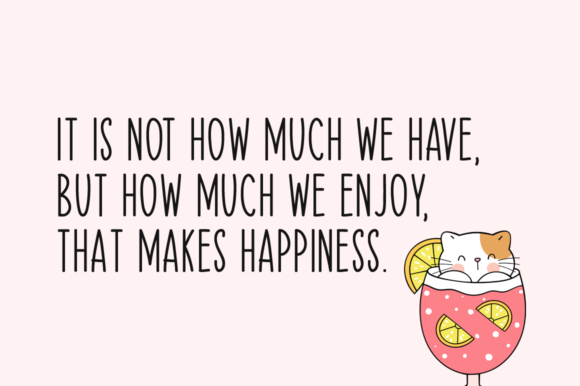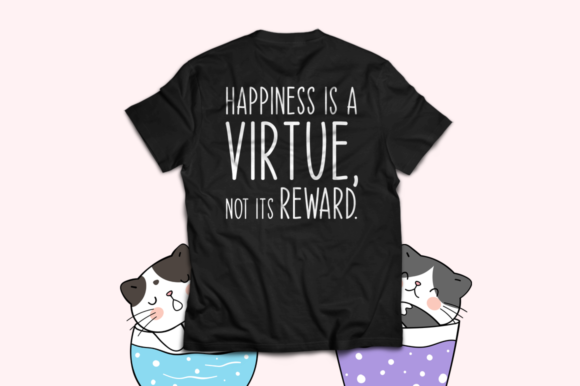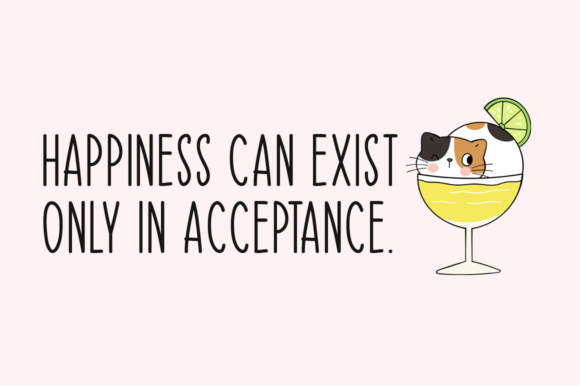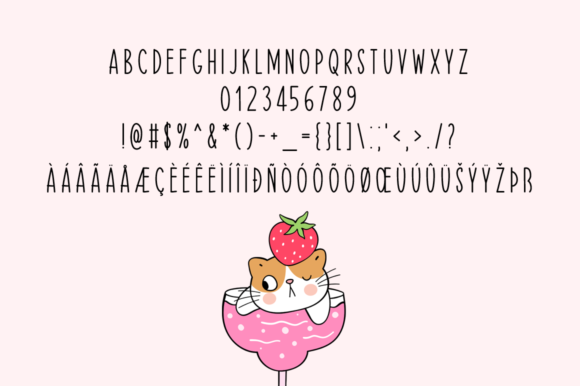
Introducing Happy Moment Font: The Perfect Addition to Your Design Arsenal
Are you a designer, crafter, or educator looking for a unique and charming font to elevate your visual creations? Look no further than Happy Moment Font, a delightful and versatile handwritten font that’s perfect for a wide range of applications. In this article, we’ll dive into the features and benefits of Happy Moment Font, and explore how it can add a personal touch to your designs.
The Charm of Happy Moment Font
Happy Moment Font is a beautifully crafted, lettered handwritten font that’s designed to bring a smile to your face. Its tall and slender letters exude a sense of playfulness and friendliness, making it an ideal choice for projects that require a touch of whimsy. Whether you’re creating chalkboard quotes, teaching materials, or social media graphics, Happy Moment Font is sure to capture the attention of your audience.
Authentic Look and Feel
One of the standout features of Happy Moment Font is its authentic look and feel. The font’s handwritten style is reminiscent of traditional chalkboard writing, complete with subtle imperfections and variations that give it a realistic, hand-crafted feel. This makes it perfect for designers and crafters who want to add a personal touch to their work. With Happy Moment Font, you can create designs that feel warm, inviting, and uniquely yours.
Happy Moment Font is a versatile font that’s suitable for a wide range of design applications. Here are just a few ways you can use this delightful font:
- Chalkboard quotes: Add a touch of personality to your chalkboard quotes with Happy Moment Font. Its tall letters and playful style make it perfect for creating eye-catching quotes that will engage your audience.
- Teaching materials: Happy Moment Font is a great choice for teachers who want to create engaging and interactive lesson plans. Use it to create worksheets, posters, and other educational materials that will delight your students.
- Social media graphics: Add a personal touch to your social media graphics with Happy Moment Font. Its playful style and authentic look make it perfect for creating graphics that will help you connect with your audience.
- Crafting projects: Happy Moment Font is also a great choice for crafters who want to add a personal touch to their projects. Use it to create custom signs, banners, and other decorative items that will make your projects stand out.
Why Choose Happy Moment Font?
So why choose Happy Moment Font over other fonts on the market? Here are just a few reasons:
- Unique style: Happy Moment Font has a unique and playful style that’s sure to capture the attention of your audience.
- Authentic look: The font’s authentic look and feel make it perfect for designers and crafters who want to add a personal touch to their work.
- Versatility: Happy Moment Font is a versatile font that can be used for a wide range of design applications.
In conclusion, Happy Moment Font is a delightful and versatile handwritten font that’s perfect for designers, crafters, and educators. Its unique style, authentic look, and versatility make it a great addition to any design arsenal. Whether you’re creating chalkboard quotes, teaching materials, or social media graphics, Happy Moment Font is sure to bring a touch of personality and whimsy to your designs. So why wait? Download Happy Moment Font today and start creating designs that will delight your audience!